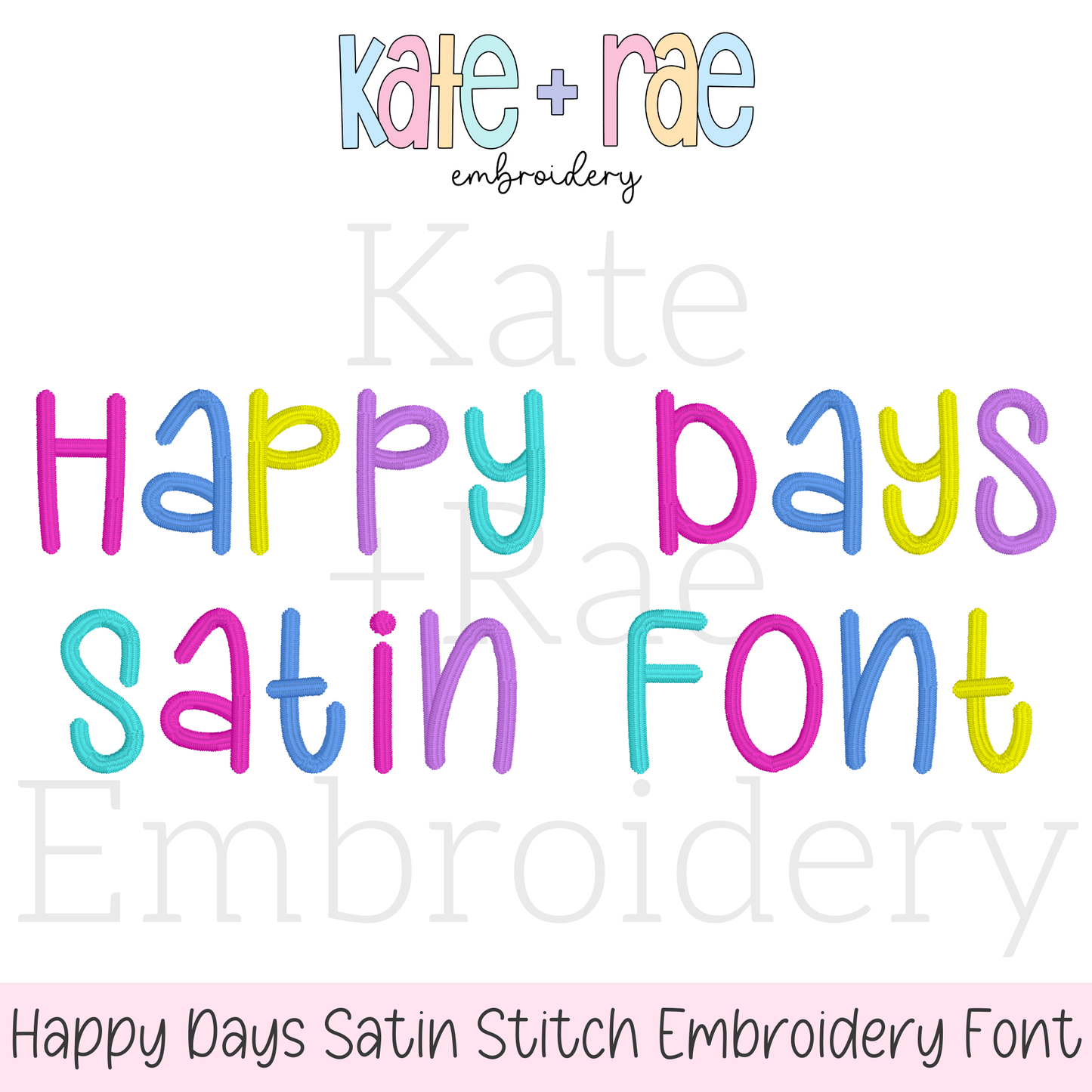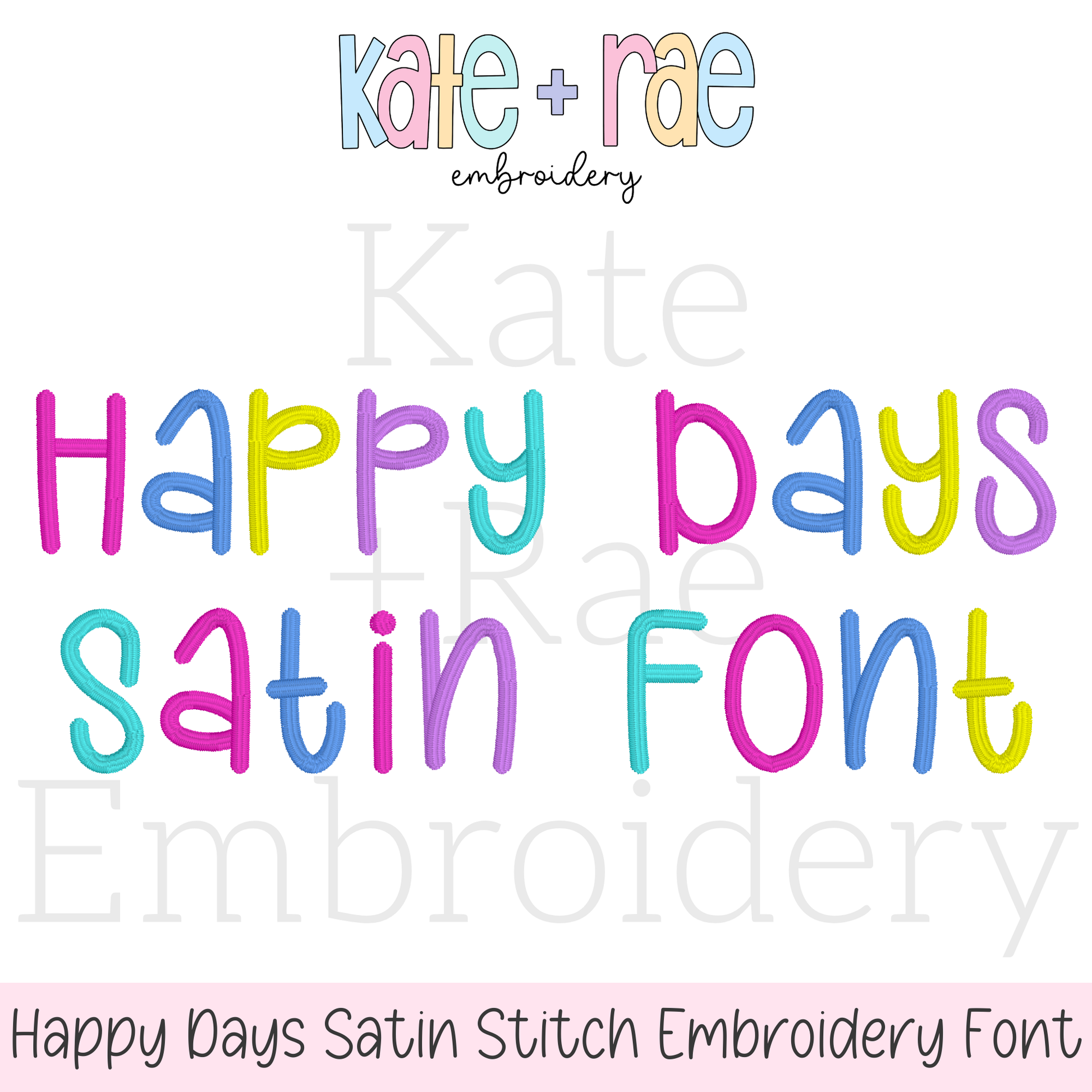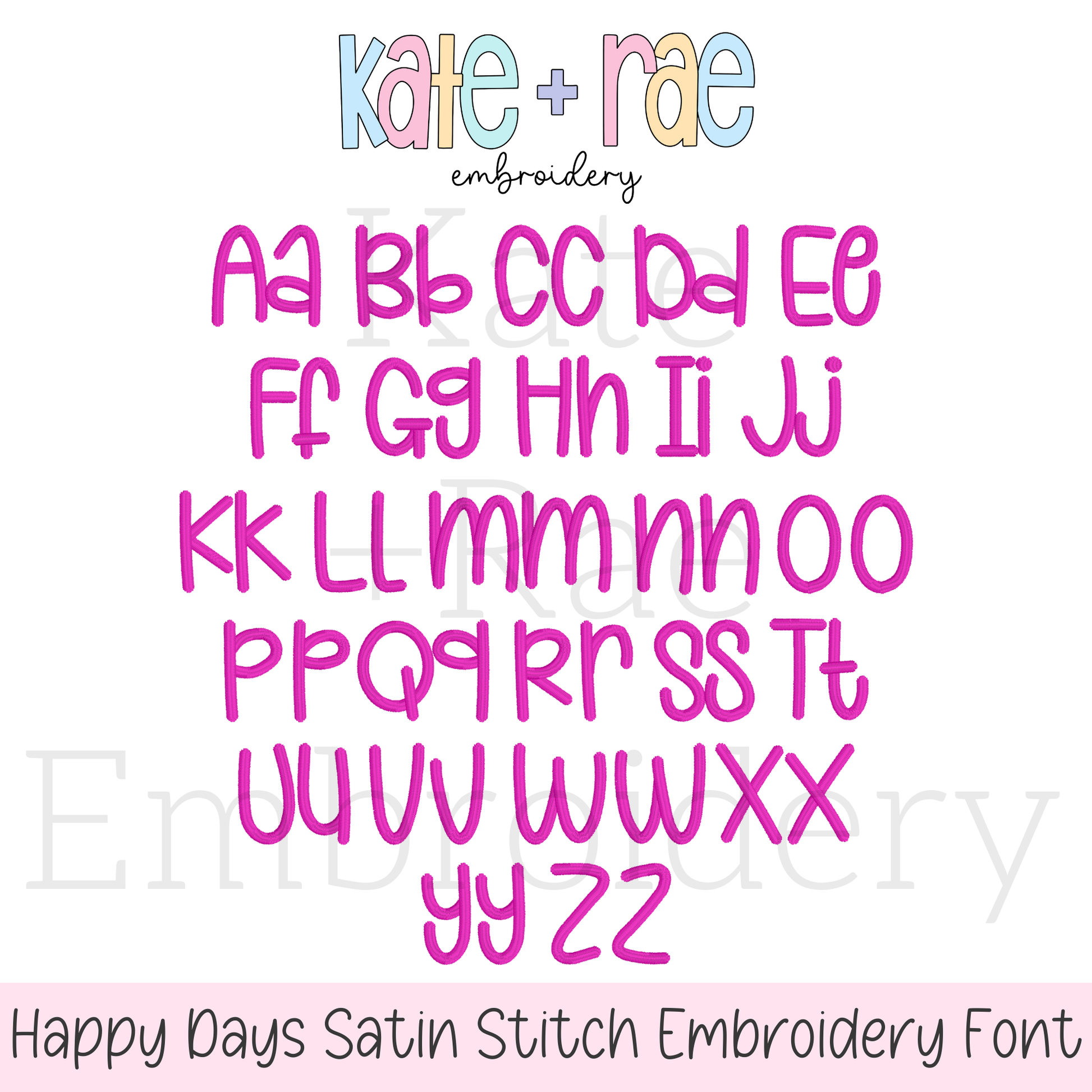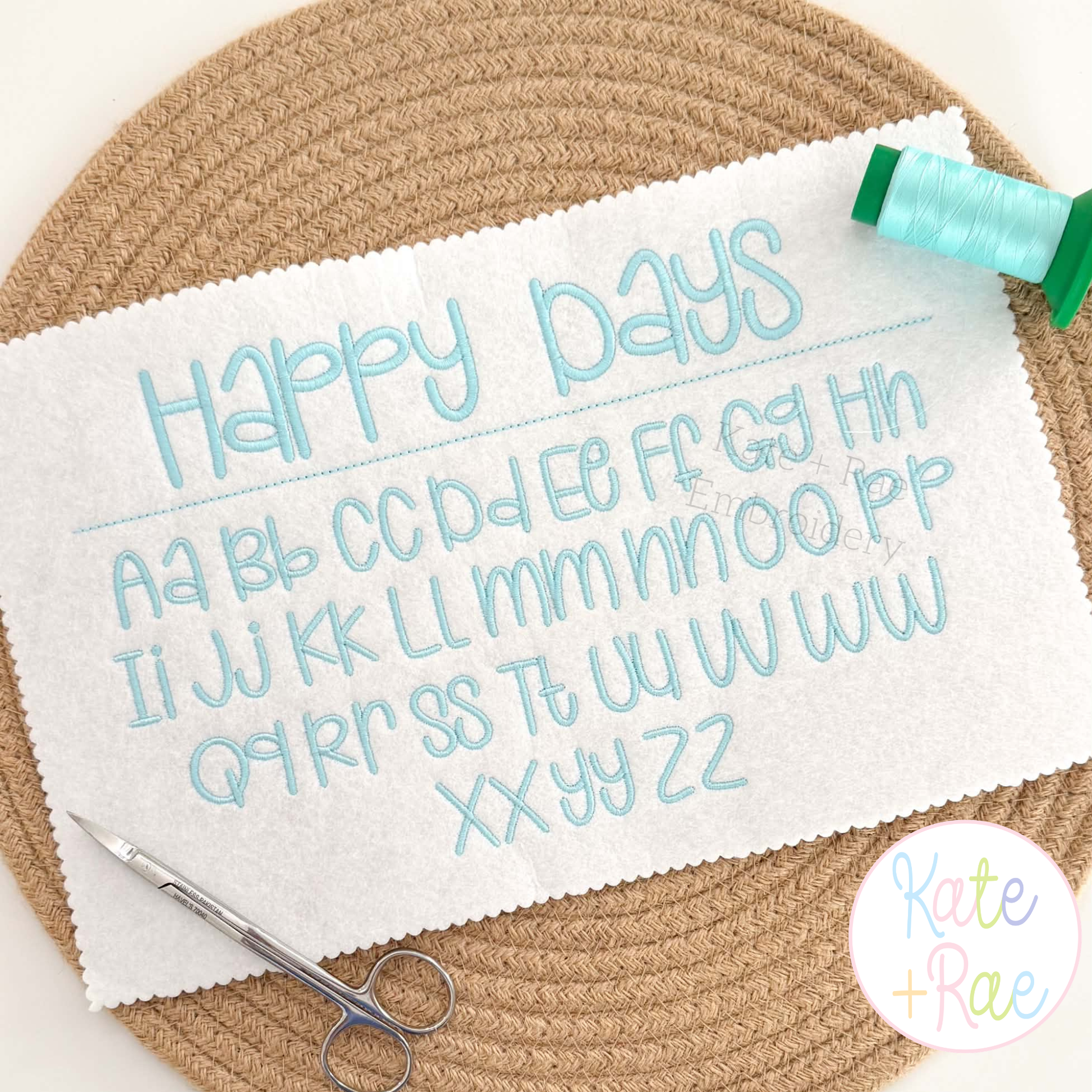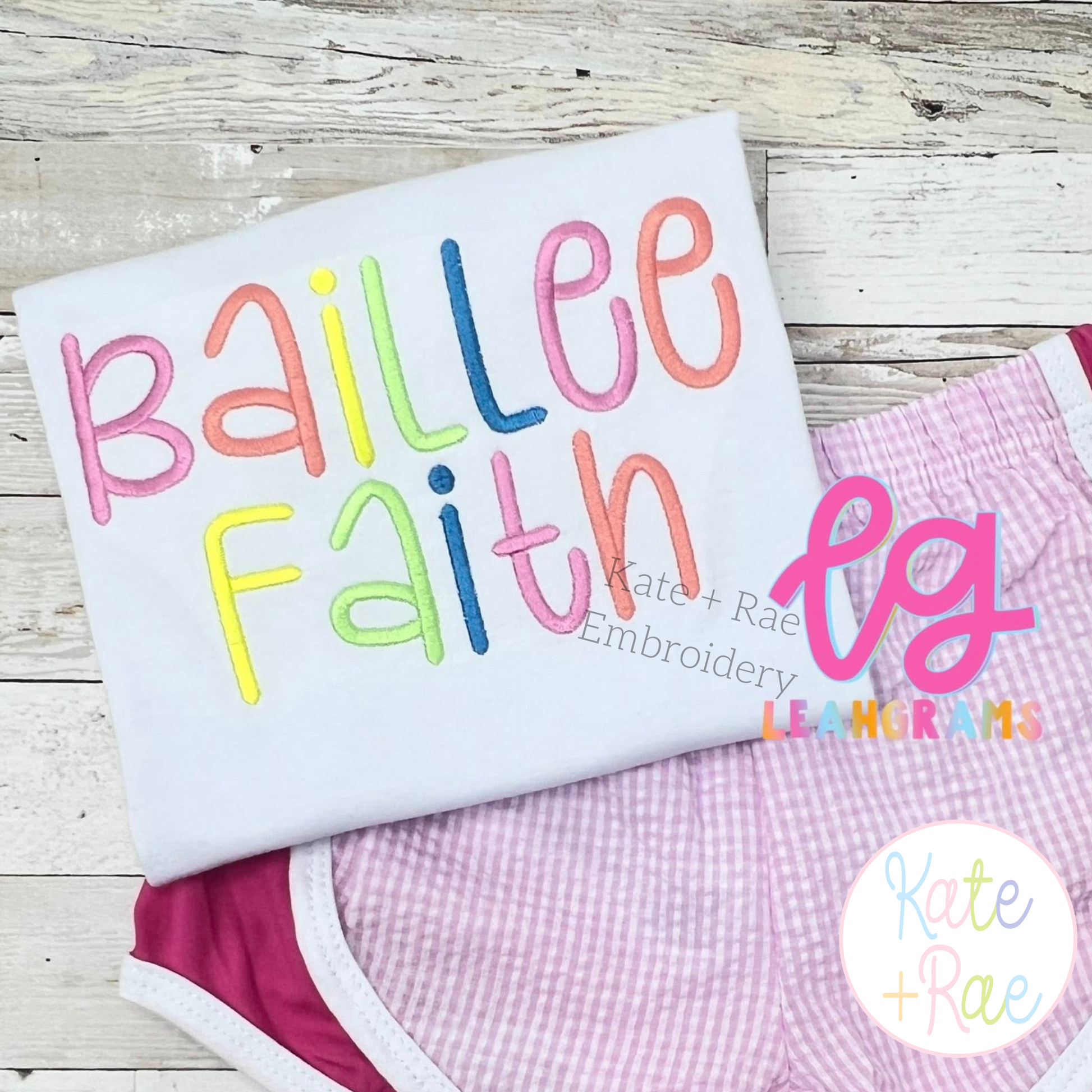
Happy Days Satin Stitch Embroidery Font
Meet Happy Days, a cheerful satin stitch embroidery font! Personalize names, monograms, sweatshirts, and kids' outfits.